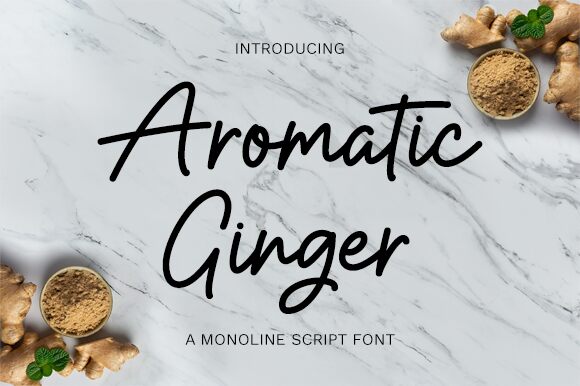
Aromatic Ginger
Aromatic Ginger, crafted by Graphix Line Studio, is a handwritten font that exudes the charm of personal touch with its semi-light weight. Its elegant curves and flowing lines capture a sense of warmth and spontaneity, inviting viewers into an intimate world of words.
The font's aesthetic appeal lies in its balance between readability and stylistic flair, making it an ideal choice for projects that require a hint of individuality without compromising on clarity. From heartfelt invitations to boutique branding, Aromatic Ginger offers designers a versatile tool to infuse their creations with the authenticity and grace of handcrafted artistry.